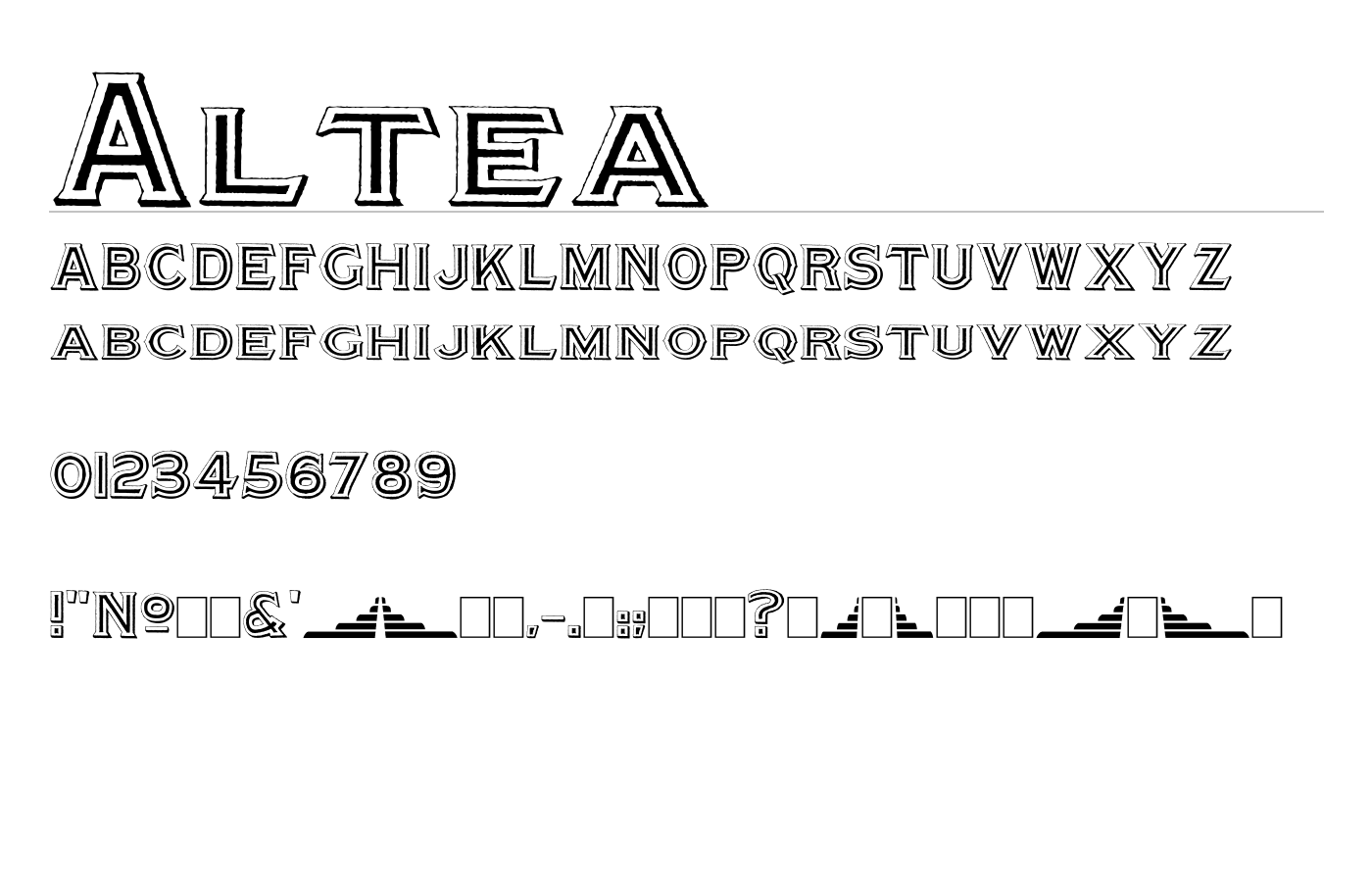
Altea is a decorative serif font with a bold and condensed style, characterized by its layered, three-dimensional effect that adds depth and vintage charm. Its strong, geometric letterforms combined with stylish outlines make it ideal for eye-catching headlines, posters, and branding that seeks a playful yet classic feel. This font works especially well in creative and retro-inspired designs where a distinctive, impactful look is desired.
Altea Font